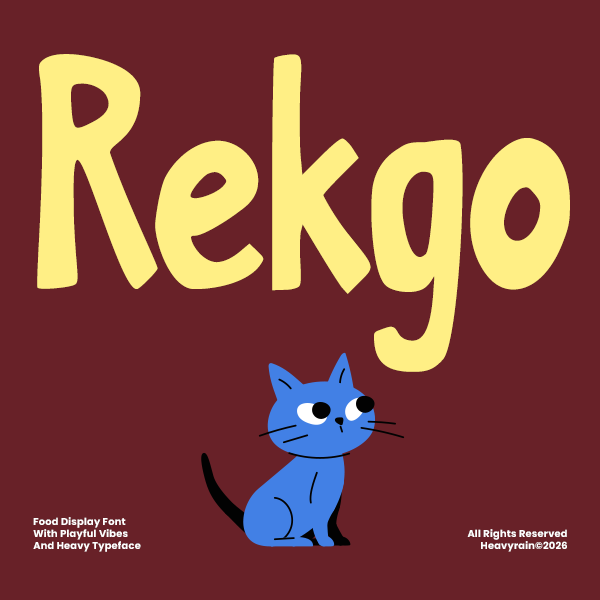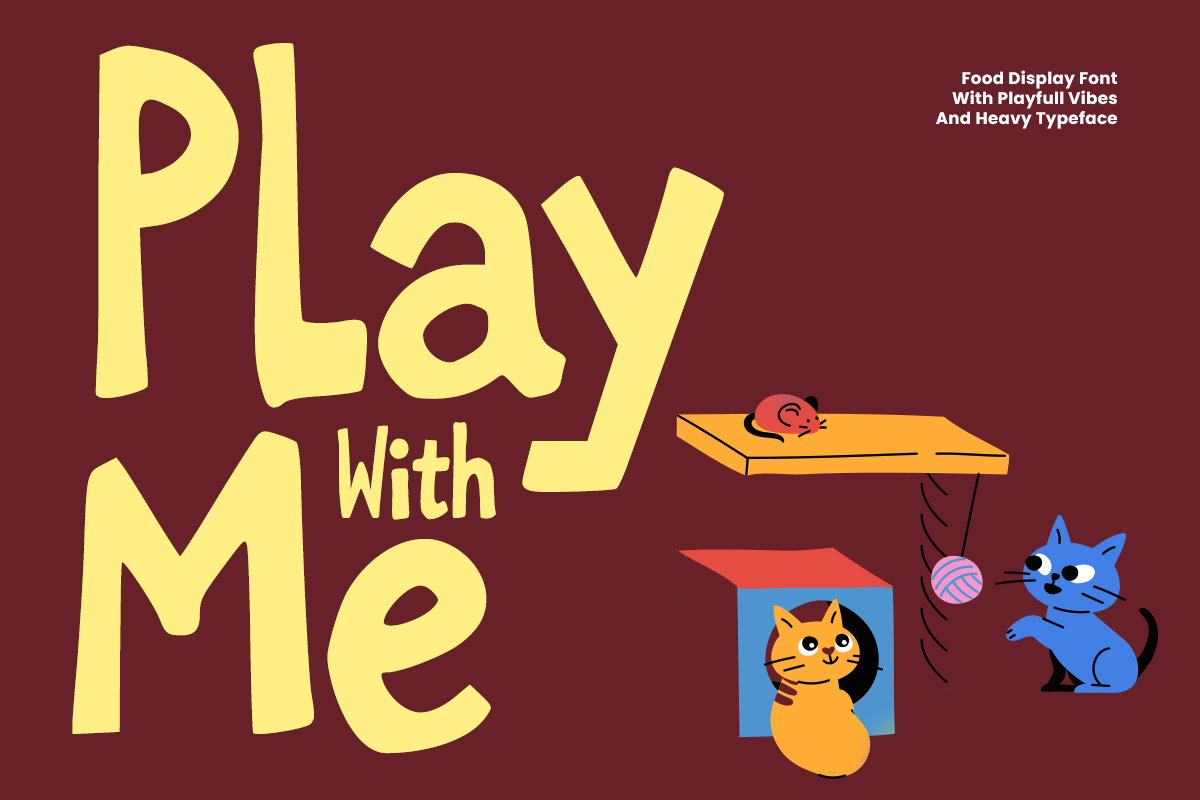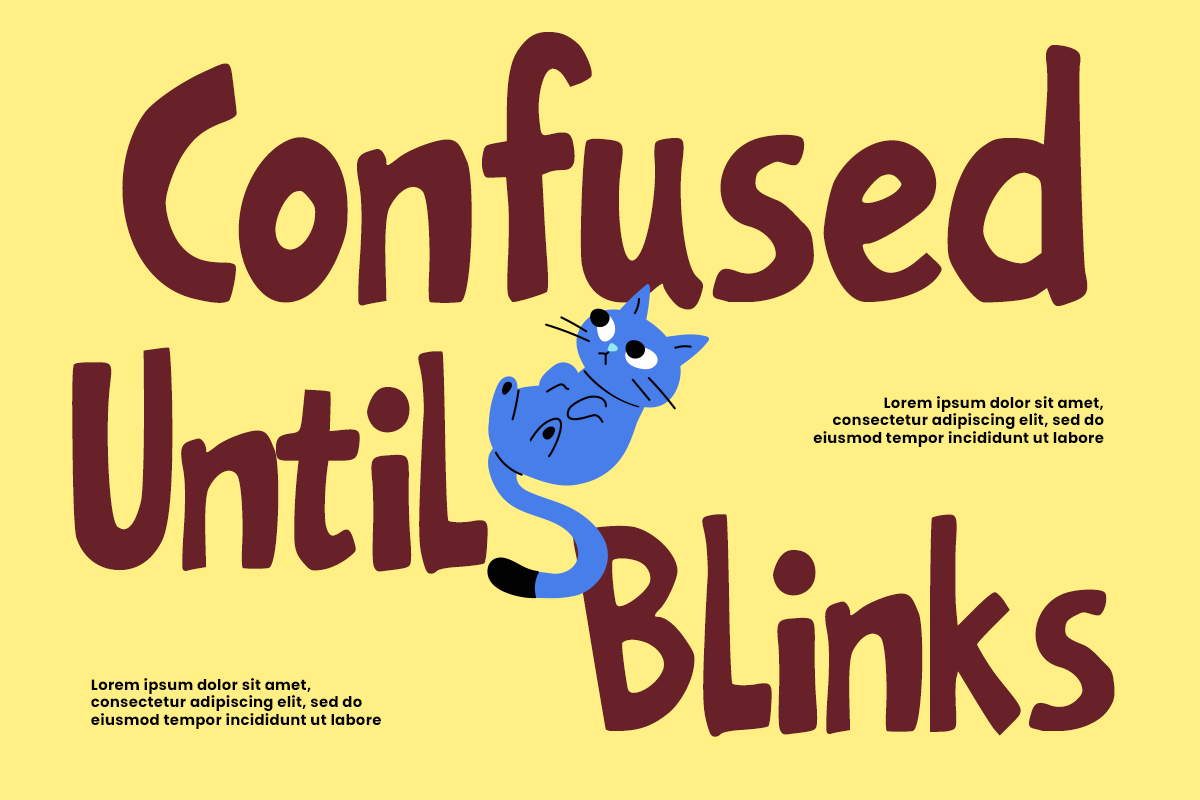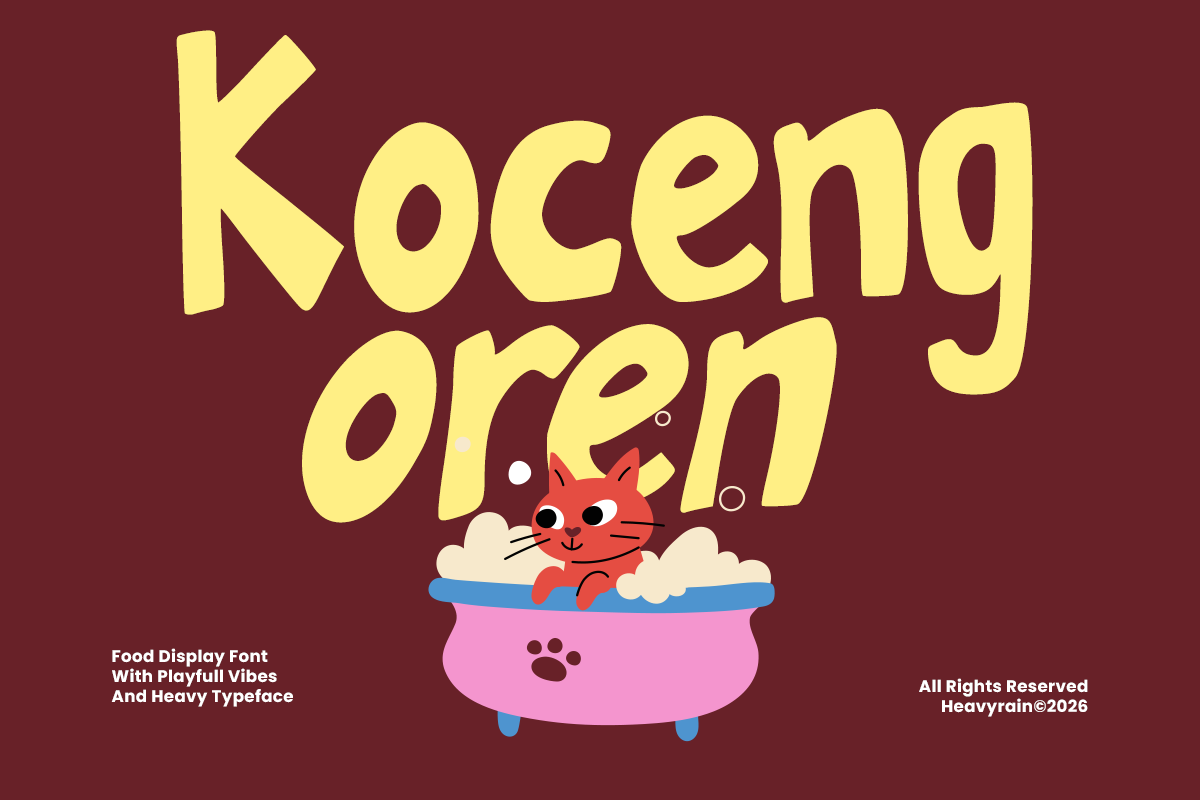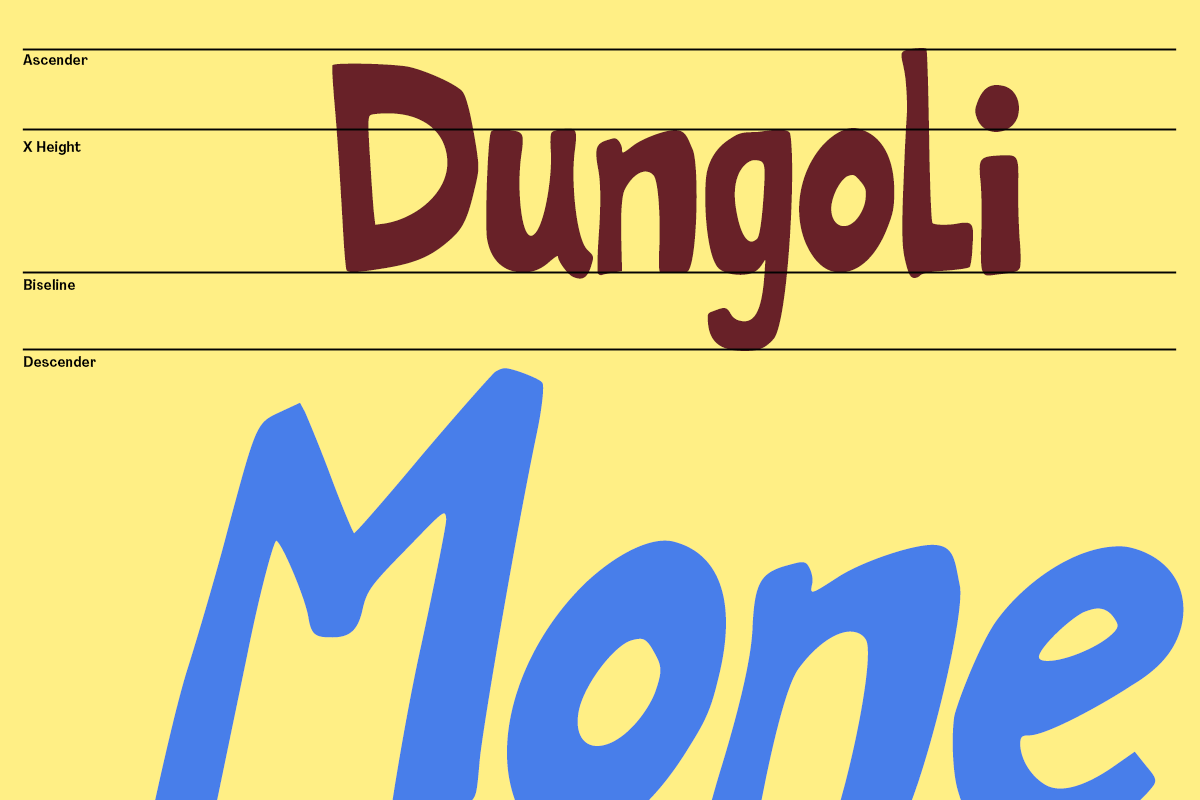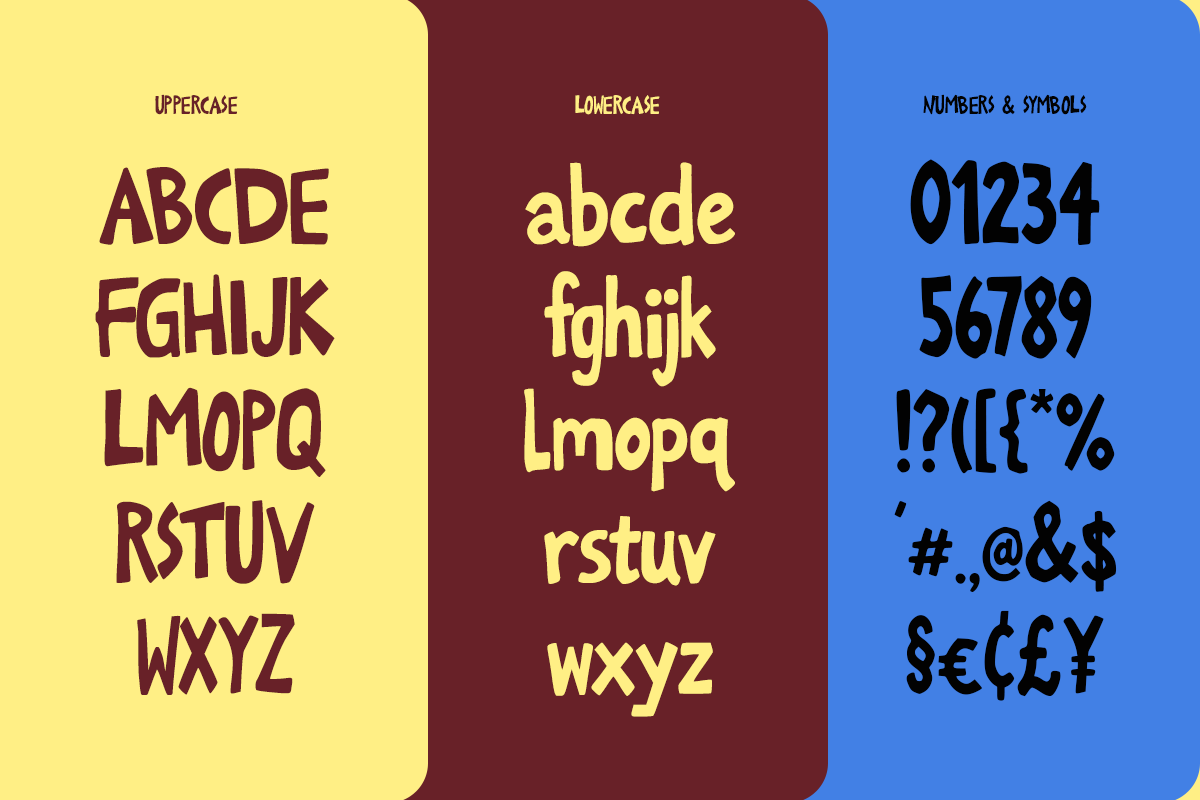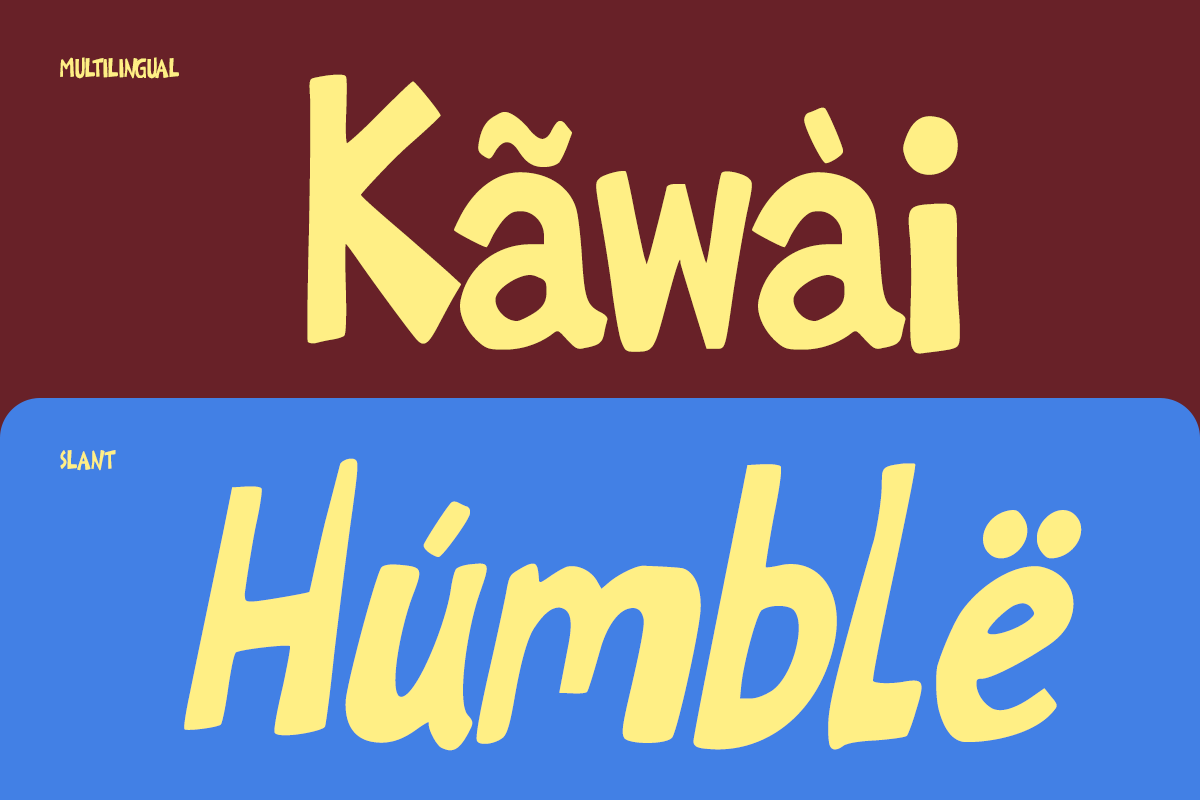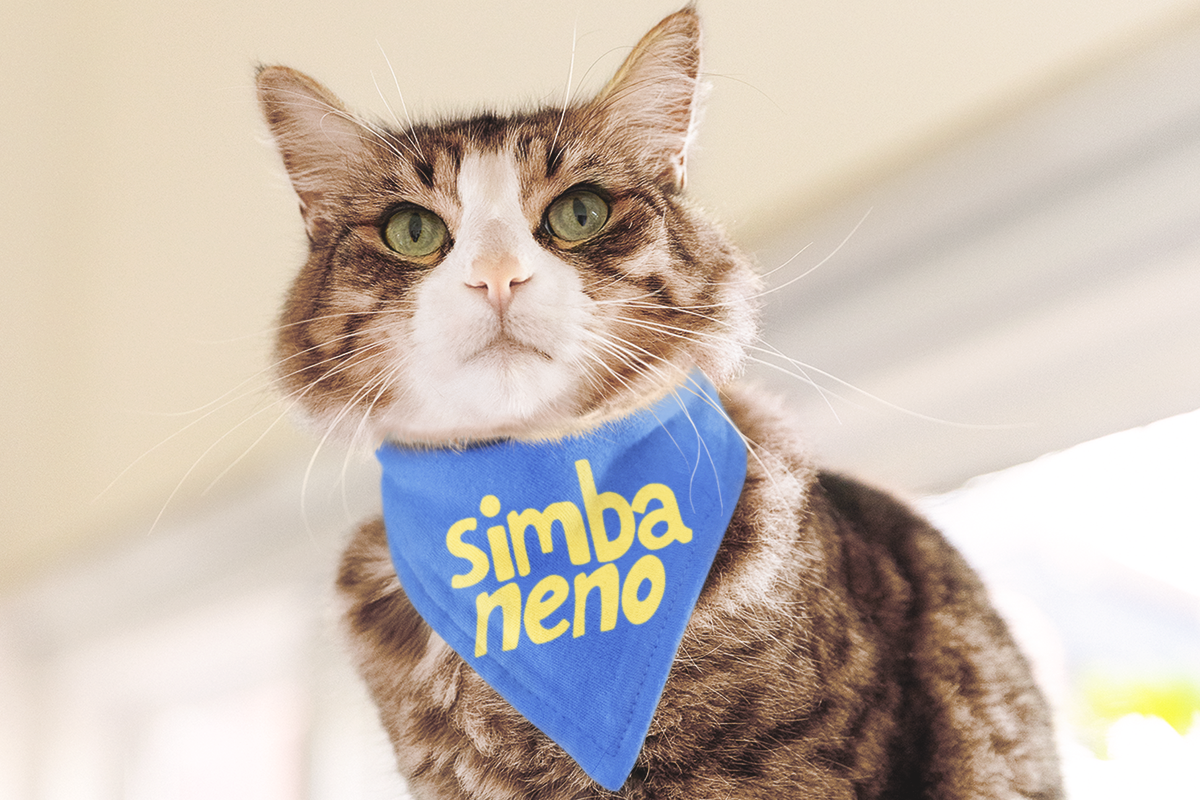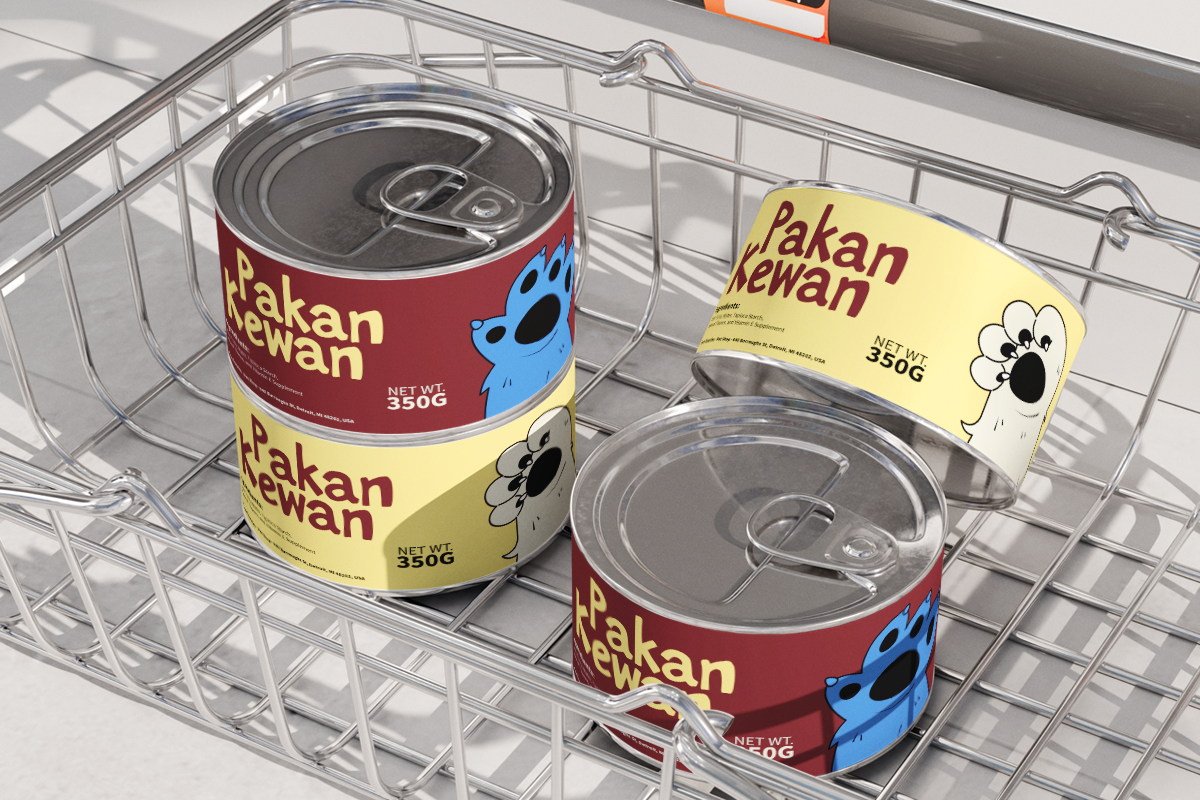
Rekgo Playful Handdrawn Display Font for Branding
Rekgo is a playful handdrawn display font created to bring personality, energy, and a friendly character to your designs. Its quirky letterforms and irregular shapes give every word a fun handmade appearance while remaining bold enough to stand out in display applications.
Use Rekgo for pet branding, food packaging, kids projects, logos, posters, product labels, merchandise, social media graphics, and playful visual identities. Its expressive character works especially well for designs that need to feel approachable, cheerful, quirky, and memorable.
The font includes uppercase, lowercase, numerals, punctuation, symbols, and multilingual characters, giving you plenty of flexibility when building headlines, short phrases, packaging typography, and branding systems.
Rekgo works particularly well at larger display sizes, where its handdrawn details and playful letterforms can become an important part of the overall visual identity.
Perfect for: Pet branding · Food packaging · Kids projects · Logos · Posters · Product labels · Merchandise · Social media · Creative branding · Playful headlines
Character set: Uppercase · Lowercase · Numerals · Punctuation · Symbols · Multilingual support
Rekgo is a handdrawn display font featuring irregular letterforms with a bold, quirky appearance. It includes uppercase, lowercase, numerals, punctuation, symbols, and multilingual character support.